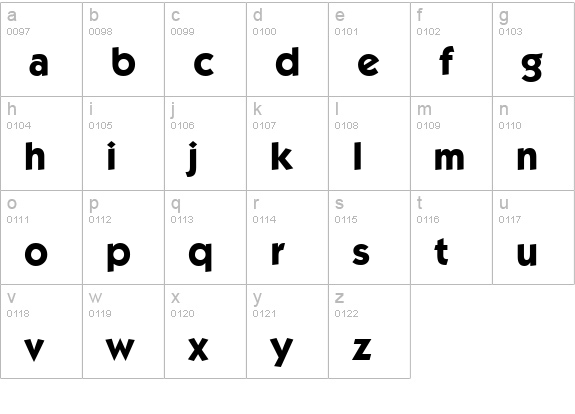
K792-Geometrical-Bold Font Details
K792-Geometrical-Bold is a strong, high-contrast variant in the K792 typeface family \xE2\x80\x94 well suited to headlines, attention-grabbing titles, and strong calls-to-action.
K792-Geometrical-Bold is a stunningly modern and elegant font that exudes confidence and style. Its bold and geometric design makes it perfect for eye-catching headlines, logos, and branding materials. With its clean lines and sharp edges, K792-Geometrical-Bold commands attention and adds a touch of sophistication to any design project. This versatile font is ideal for both digital and print applications, making it a must-have in any designer's toolkit. Whether you're working on a website, poster, or business card, K792-Geometrical-Bold will help your text stand out and make a lasting impression. And the best part? K792-Geometrical-Bold is completely free to download at FontsMarket.com, so you can start using it in your projects right away. Don't miss out on this incredible font that combines modern aesthetics with timeless appeal. Download K792-Geometrical-Bold today and take your designs to the next level!